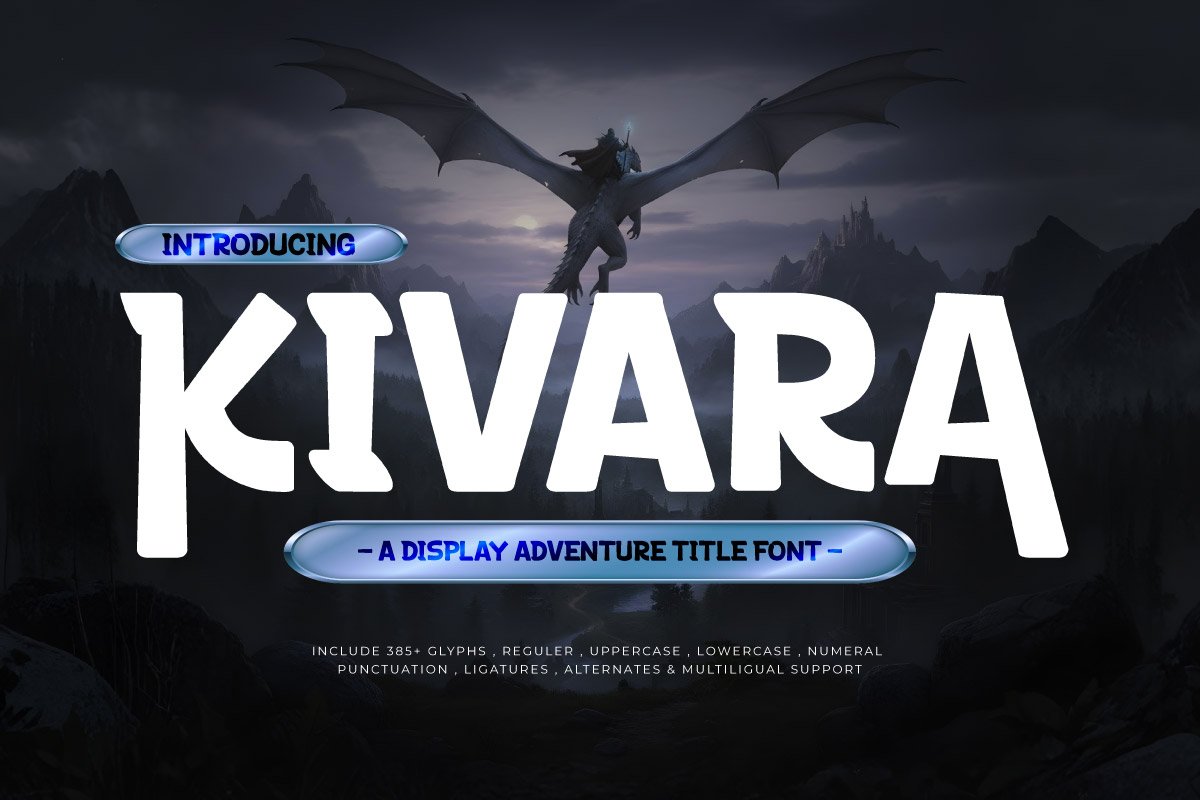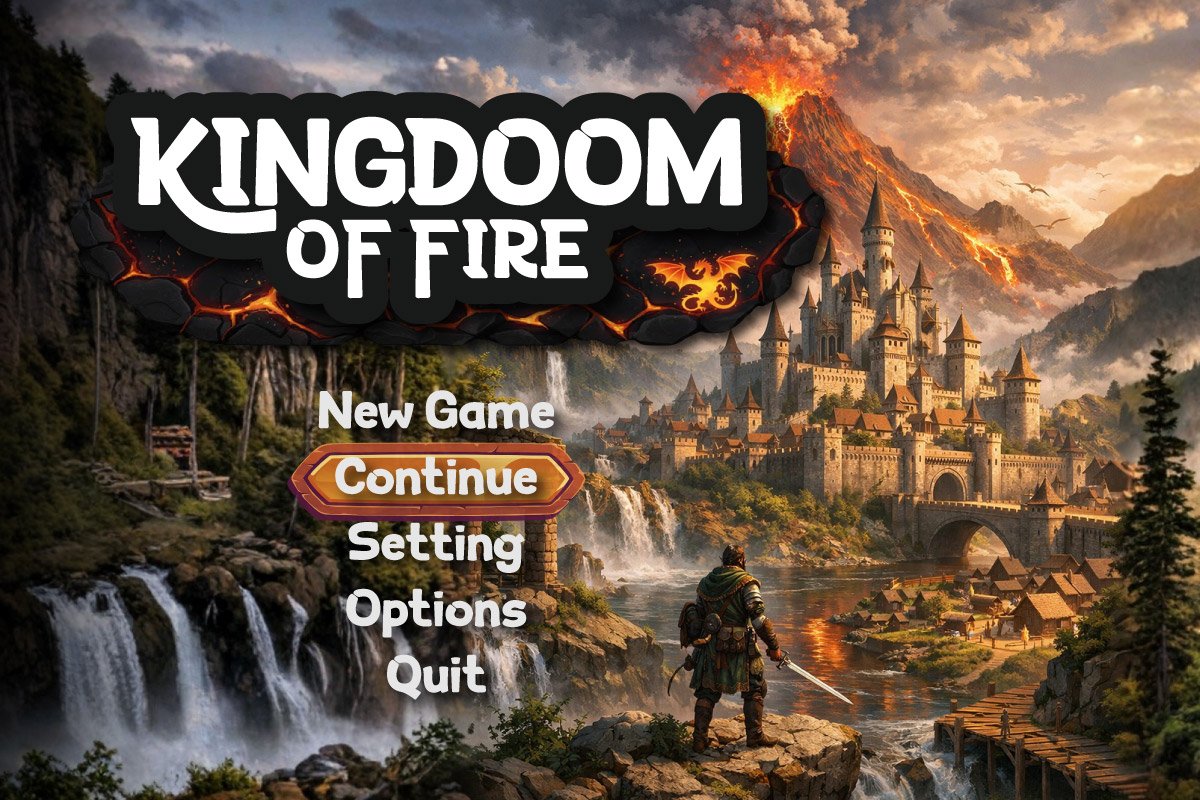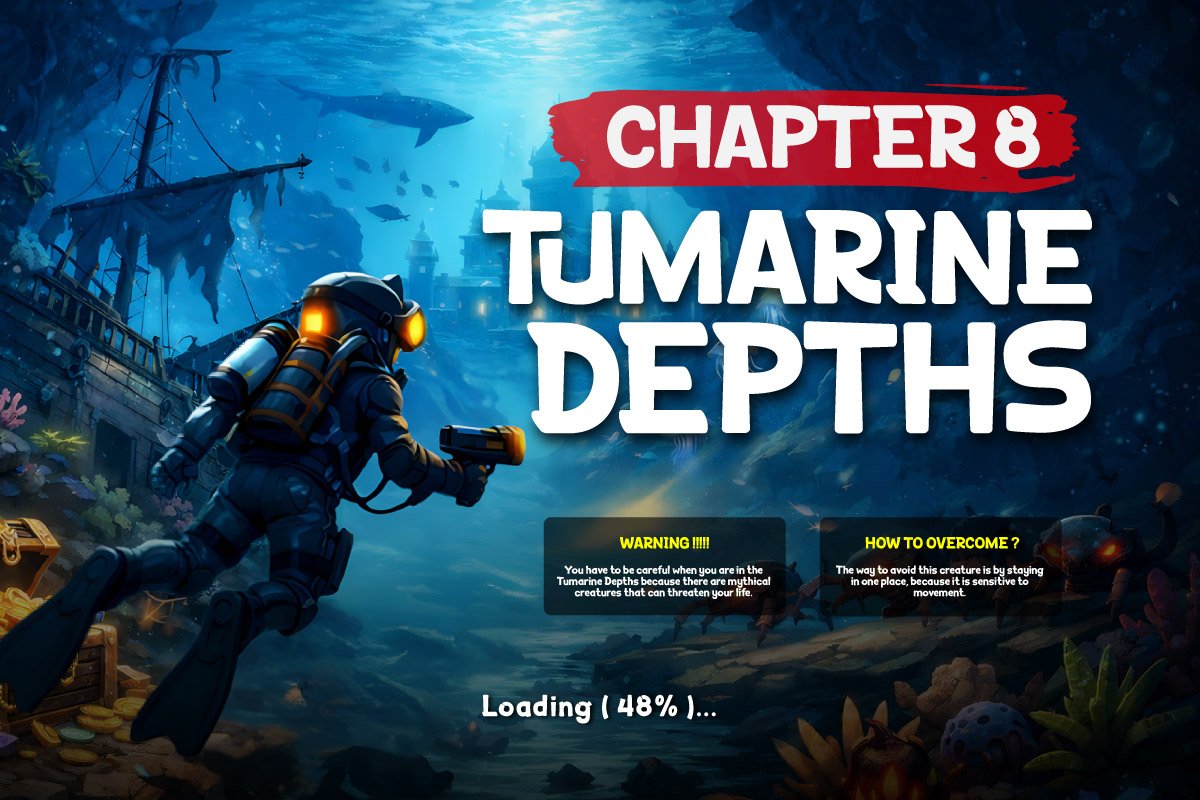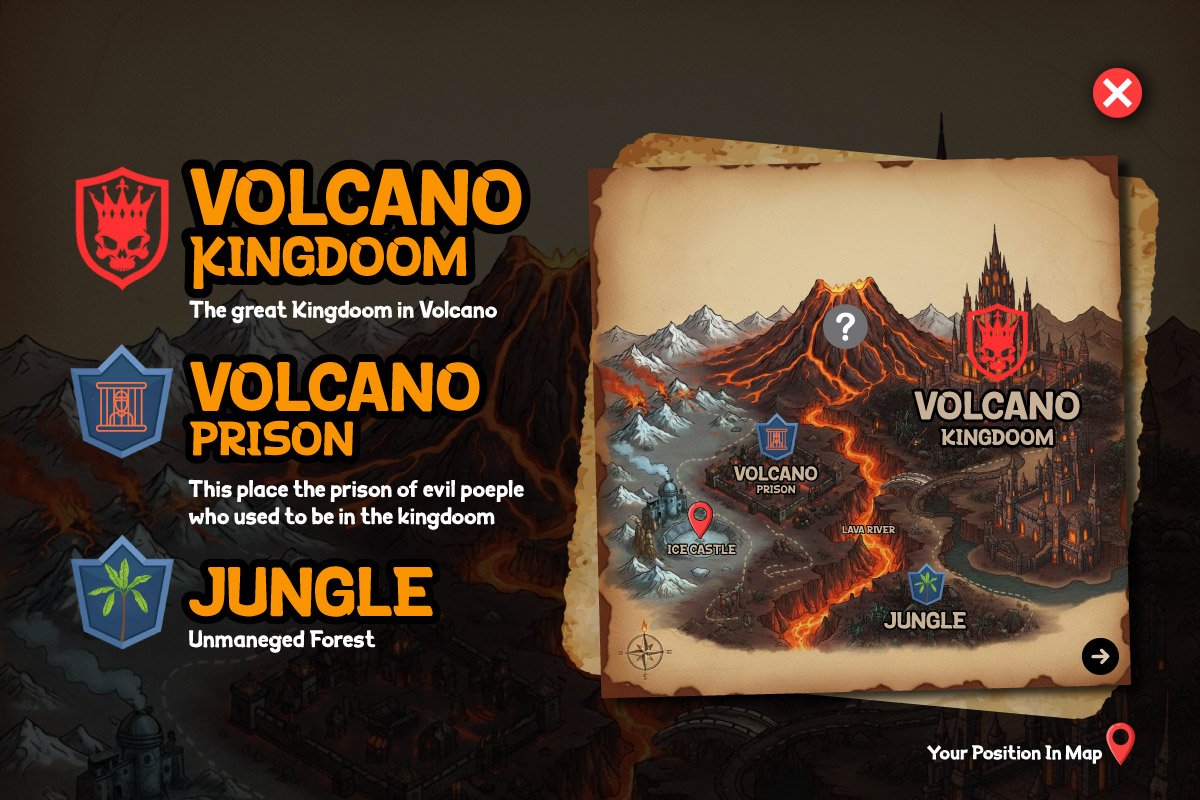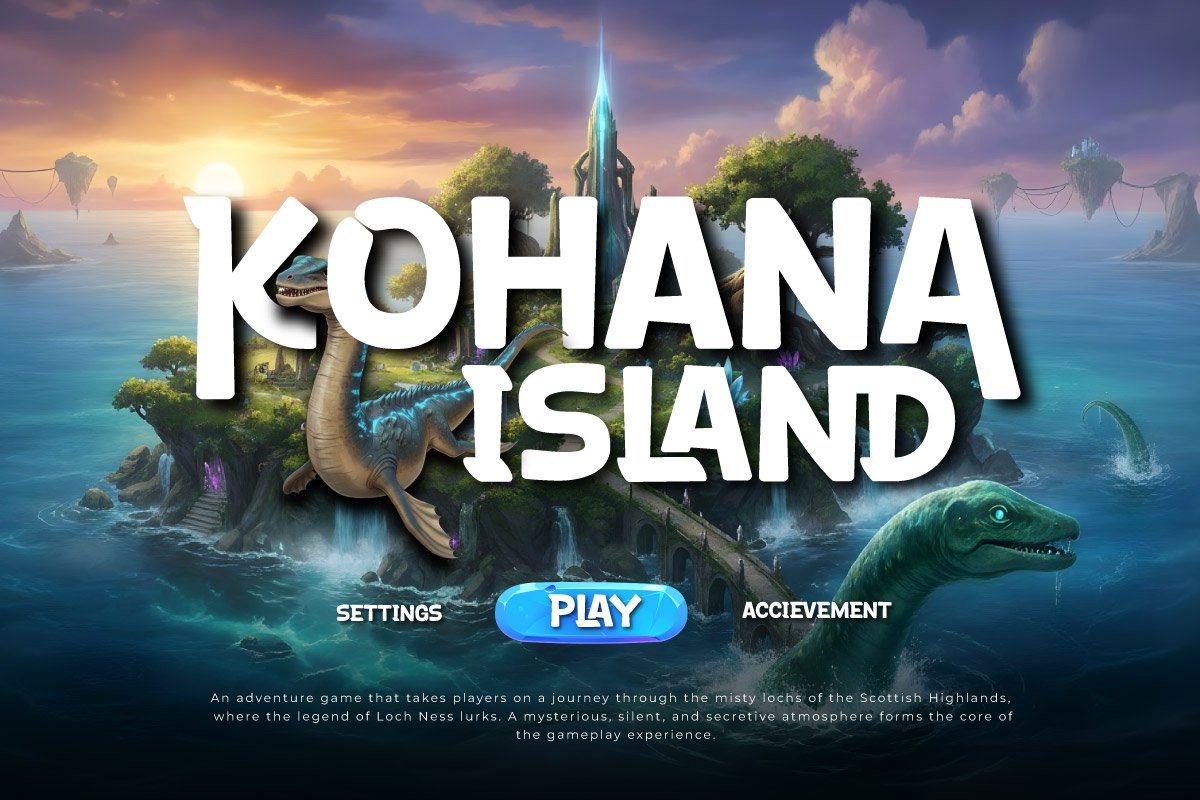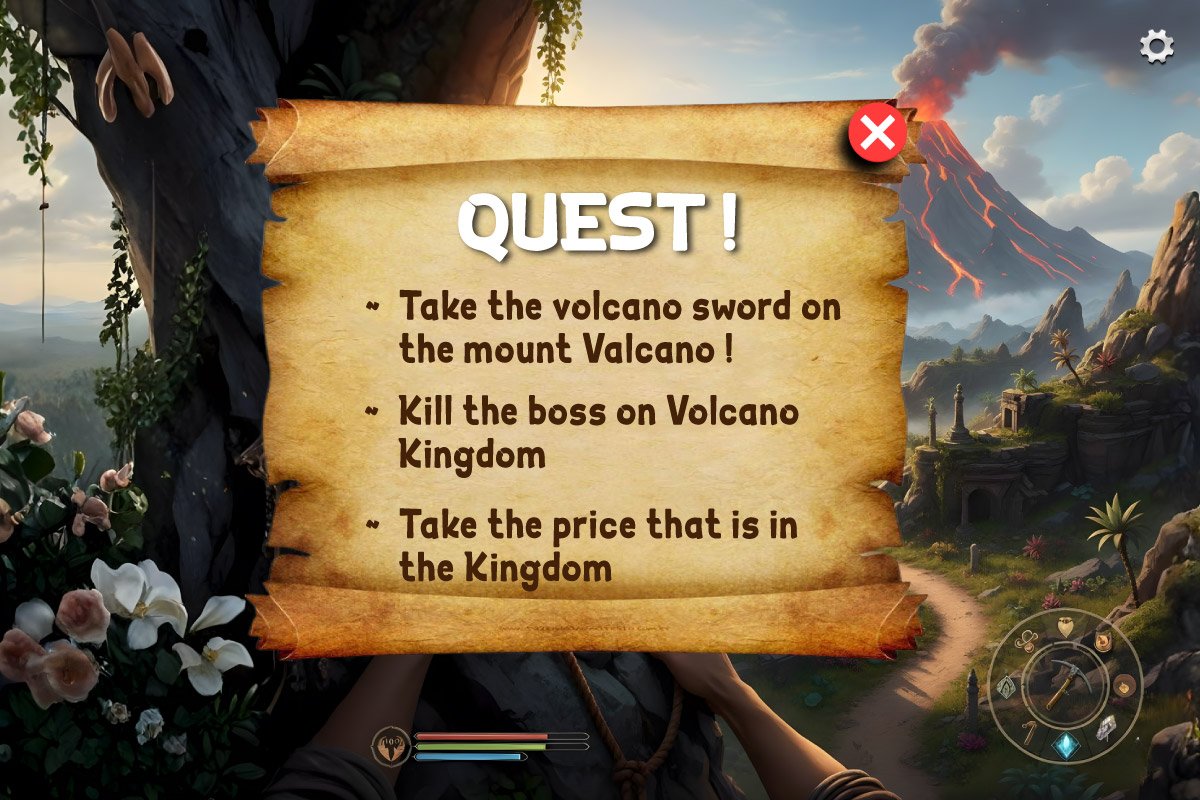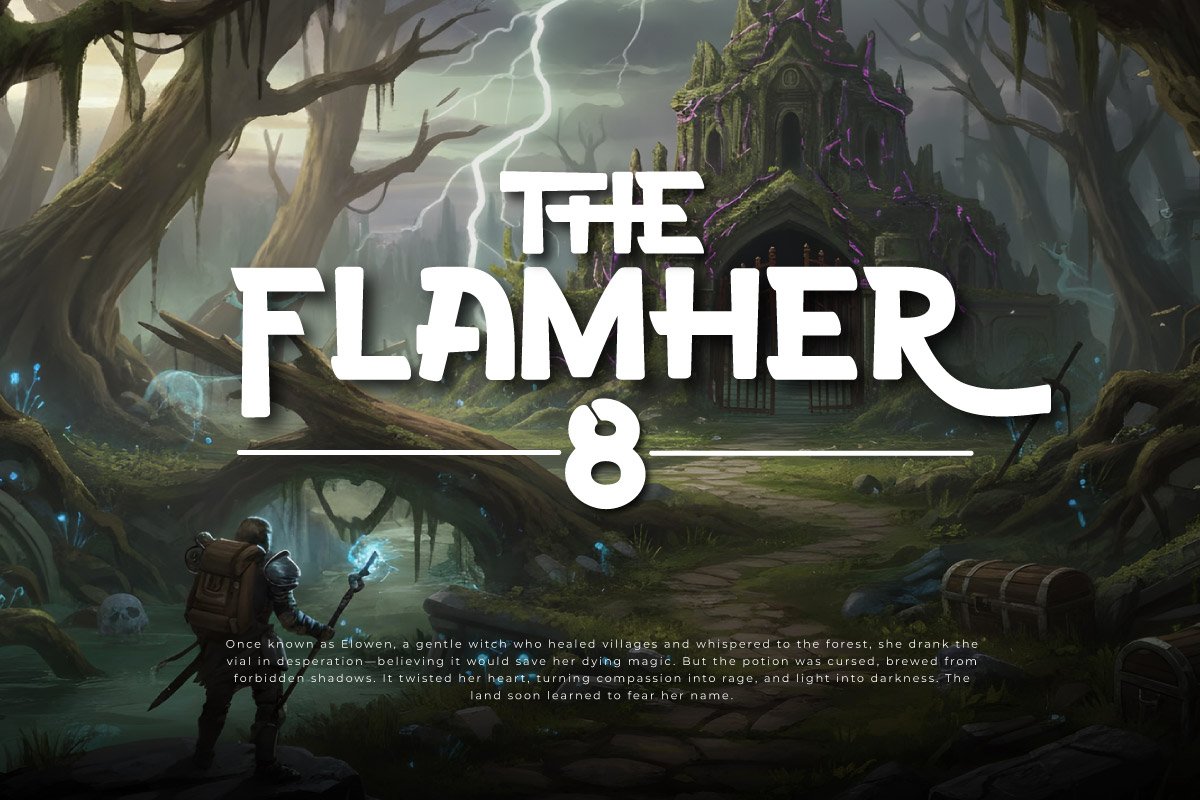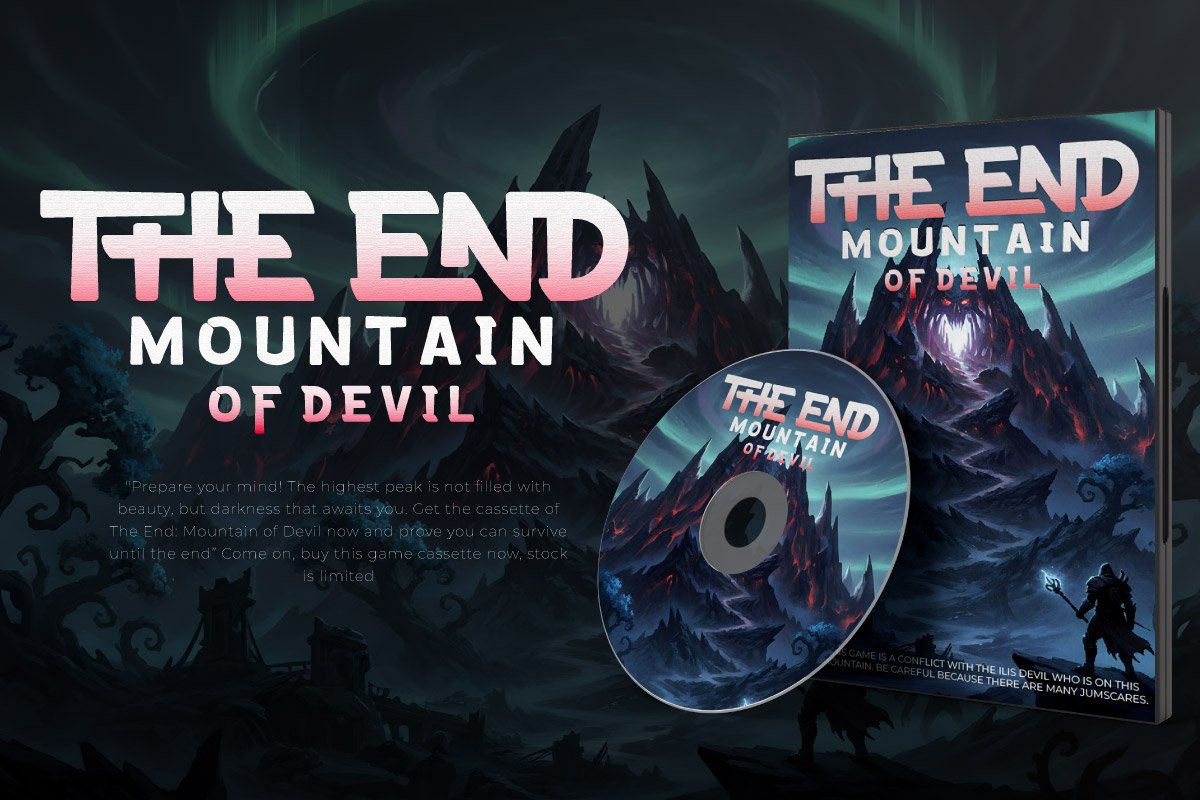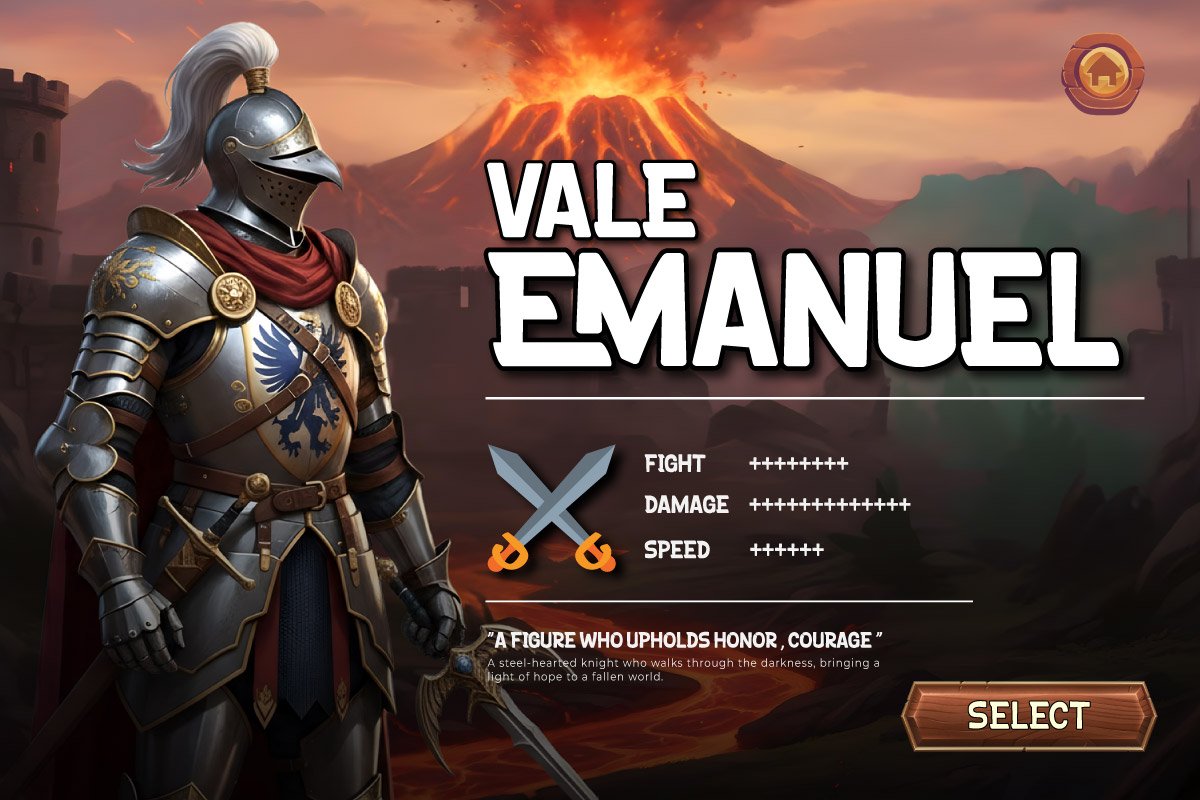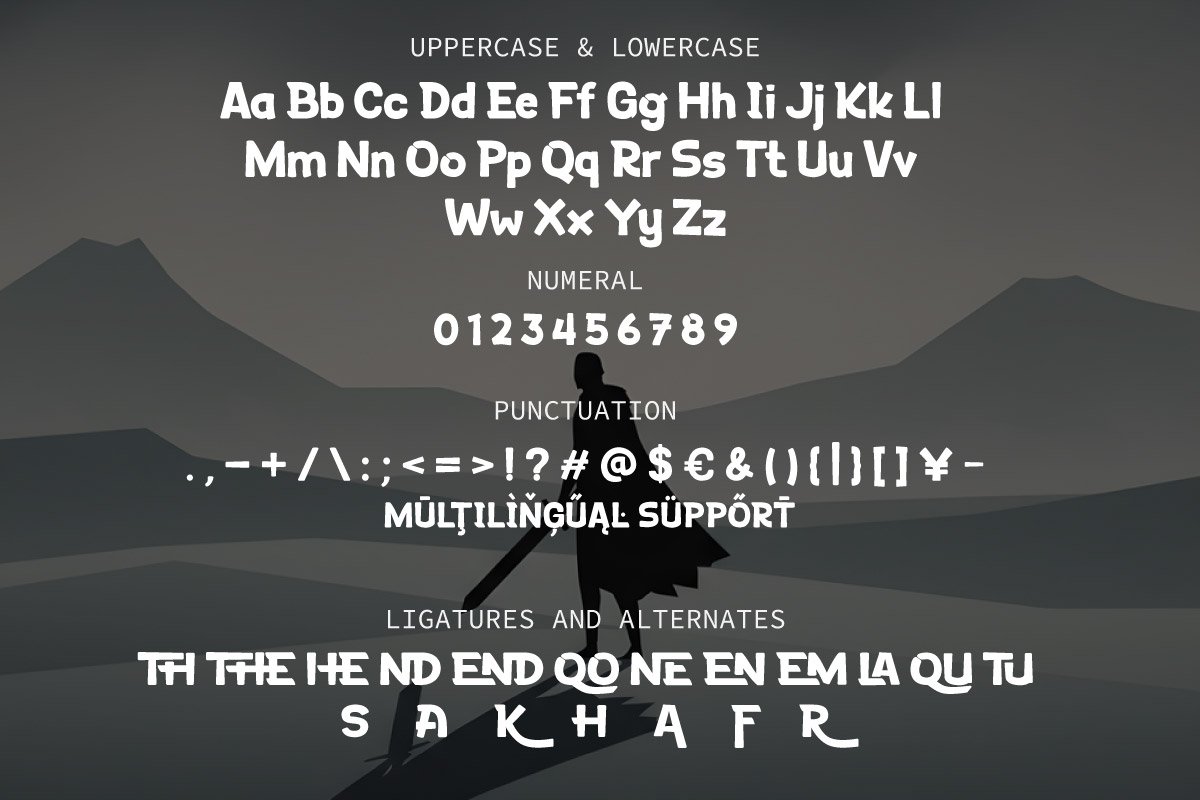
Kivara – Adventure Title Font
Kivara is a bold Display Adventure typeface, specifically designed to capture the essence of fantasy worlds and action-packed epic adventures. Featuring strong letterforms and sharp terminals reminiscent of ancient artifacts or wild elements, this font brings a heroic and legendary atmosphere that instantly commands attention and radiates maximum power for any title it carries.
Engineered with dynamic curves and expressive details, Kivara works seamlessly for game titles, cinematic posters, and fantasy branding that require a mystical yet rugged touch. Its unique letterforms help create immersive visual storytelling across both digital and print media, ensuring every word carries profound visual weight and gives the impression of a “guardian” or “hunter” within an adventure narrative.
As a versatile Adventure Title Font, Kivara is the ideal choice for game developers and creative designers looking to elevate their projects with a magical and competitive visual identity. From Jungle Hunter themes to legendary battles, this font is perfectly suited for headlines, gaming logos, and promotional materials that aim to stand out in the marketplace with a sharp, distinctive, and unforgettable Fantasy Font aesthetic.